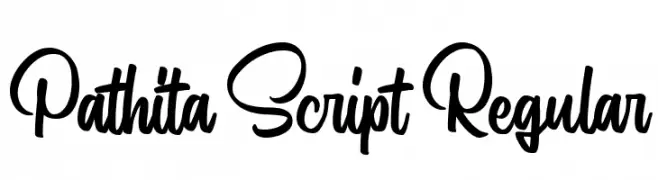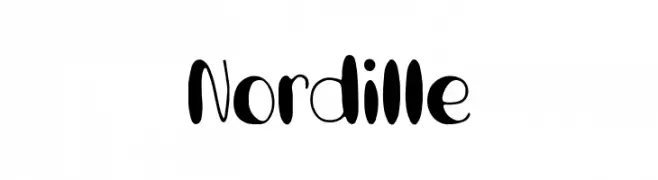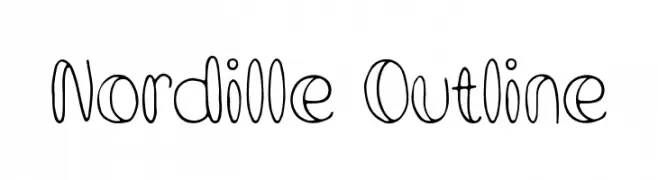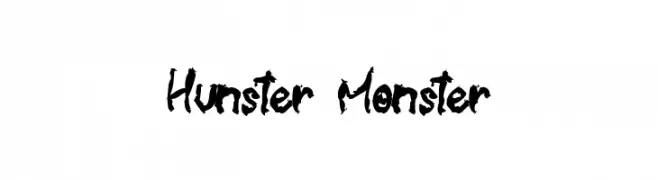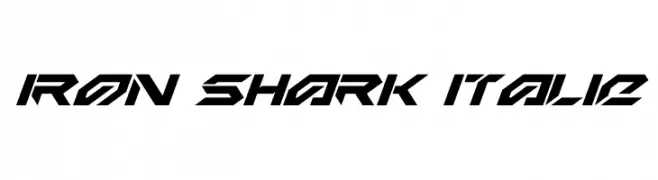
A bold, graffiti-inspired font with sharp, angular lines and a dynamic style.
A lively and flowing script font with elegant, cursive letterforms.
A lively, expressive script font with fluid, dynamic strokes and a modern aesthetic.
A bold, playful font with geometric influences and rounded characters.
A playful, handwritten font with bold, flowing strokes and a whimsical style.
A playful, outline-style font with a hand-drawn aesthetic.
A dynamic, handwritten-style font with expressive and fluid characters.
A bold, rugged font with a hand-painted, artistic style.
A bold, angular, and futuristic italic font with a dynamic and edgy style.
A bold, angular font with a futuristic and aggressive style.